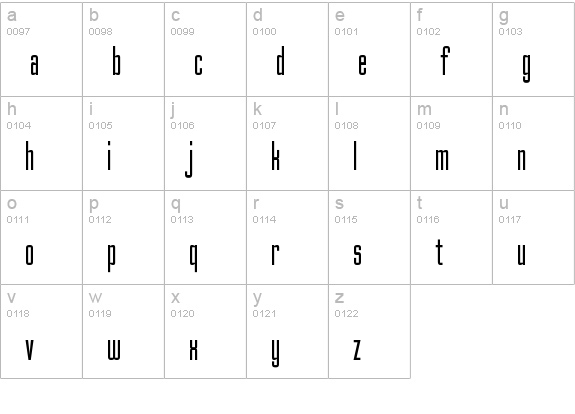
OrlandoRegular Font Details
OrlandoRegular is a versatile and modern font that is perfect for a wide range of design projects. With its clean lines and classic yet contemporary aesthetic, this font is sure to make your text stand out. Whether you are designing a logo, creating a poster, or crafting a website, OrlandoRegular will add a touch of sophistication to your work. The best part? OrlandoRegular is completely free to download at FontsMarket.com. This means you can elevate your designs without breaking the bank. Don't miss out on this fantastic opportunity to enhance your typography game with OrlandoRegular. Download it today and start creating stunning visuals that will leave a lasting impression.